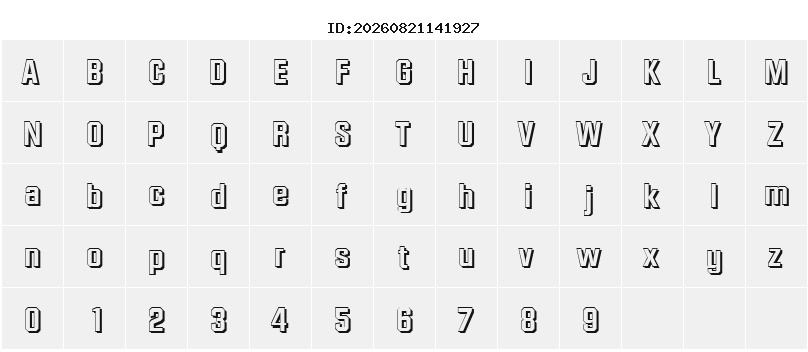
SeanBeckerShadow Preview
About SeanBeckerShadow.ttf
SeanBeckerShadow.ttf is a modern, elegant sans-serif font designed for ultimate readability and visual harmony. Perfect for branding, headlines, web design, and print materials.